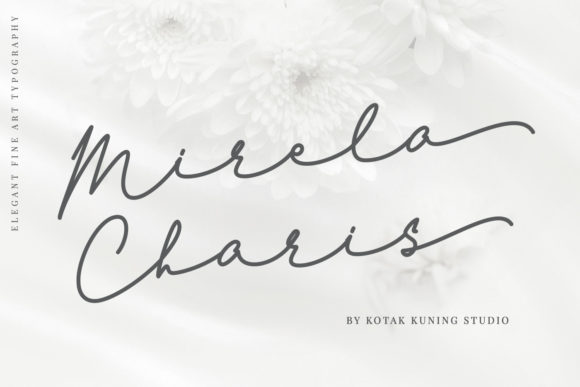
Introducing Mirela Charis Font, the epitome of elegance and style in the world of script fonts. Created by the illustrious Kotak Kuning Studio, this font is specifically designed for those seeking the Best Font For A Signature.
With Mirela Charis, your signature will transform into a work of art, leaving a lasting impression on every document you sign. Its unique cursive style adds a touch of sophistication and personality, setting you apart from the crowd. Whether you're signing an important contract or simply adding a personal touch to your emails, this font is guaranteed to elevate your signature to new heights.
But Mirela Charis doesn't stop at signatures; it is also the perfect choice for creating eye-catching logos. Crafted with meticulous attention to detail, each letter exudes elegance and grace, making it ideal for businesses that want to make a memorable impression. From fashion brands to beauty salons, this font will instantly captivate your audience and leave them in awe of your brand's identity.
What sets Mirela Charis apart is its undeniable charm. Its sweet look is bound to make you fall in love with its every curve and swirl. The fluidity of each letter brings a sense of whimsy and romance to your designs, making it the perfect choice for wedding invitations, love letters, and heartfelt messages.
But don't be fooled by its delicate appearance; Mirela Charis is also incredibly versatile. It effortlessly adapts to any project, whether it's a book cover, website design, or social media graphics. Its flexibility knows no bounds, making it a must-have for designers and creatives alike.